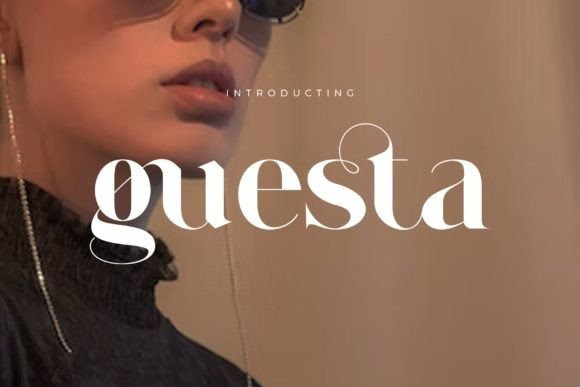
Guesta Font
Guesta Font is a chic and charming serif font. No matter the topic, this font will be an incredible asset to your fonts’ library, as it has the potential to elevate any creation.